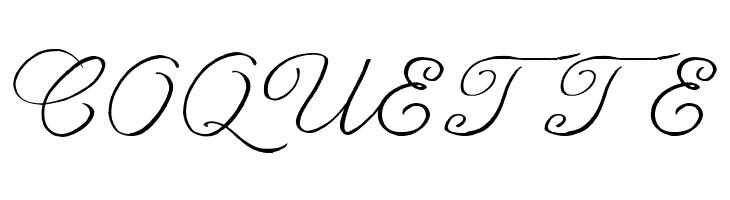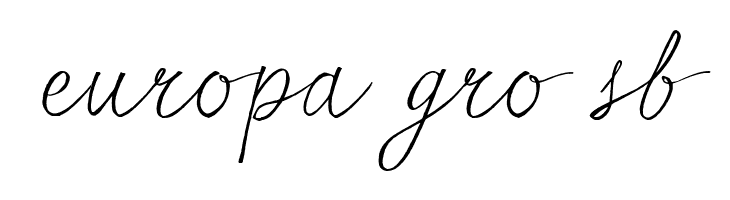
An elegant script font with flowing, cursive strokes and ornate details.
An elegant script font with flowing, cursive letters and a classic appearance.
A tall, narrow, and modern font with clean lines and a sleek design.
A tall, narrow font with a modern, sleek design and tight spacing.
A playful, hand-drawn font with rounded edges and a casual, friendly style.
A rugged, stitched-style font with a handcrafted, edgy appearance.
A playful handwritten font with dynamic strokes and decorative elements.
A bold, rounded typeface with minimal contrast and strong visual impact.
A casual, handwritten font with smooth, flowing strokes and a friendly appearance.
A casual, handwritten font with a friendly and approachable style.
A bold, distressed font with a hand-drawn, graffiti-like style.
A bold, jagged font with sharp, irregular edges and a dynamic appearance.
A bold, jagged font with an energetic and playful design.
A playful, wavy hollow font with a dynamic outline.
A wavy, hollow outline font with a dynamic and playful style.
A bold, wavy font with a playful and dynamic design.
A bold, jagged font with a playful, hand-drawn appearance.
A bold, modern sans-serif font with strong, clean lines.
A bold, italicized font with strong strokes and a modern, dynamic style.
A modern, italicized sans-serif font with medium contrast.
A clean and modern sans-serif font with balanced proportions and clear readability.
A modern, geometric sans-serif font with clean lines and uniform width.
A modern, monospaced font with a technical and futuristic style.
A modern, monospaced font with low contrast and geometric shapes, ideal for technical use.
A modern, geometric sans-serif font with balanced spacing and clear characters.
A bold, jagged script font with sharp, dynamic edges.
A bold, edgy font with sharp, jagged edges and a dynamic, cursive-like style.
A playful, casual handwritten font with irregular, organic strokes.
A bold, playful handwritten font with expressive strokes and a casual style.